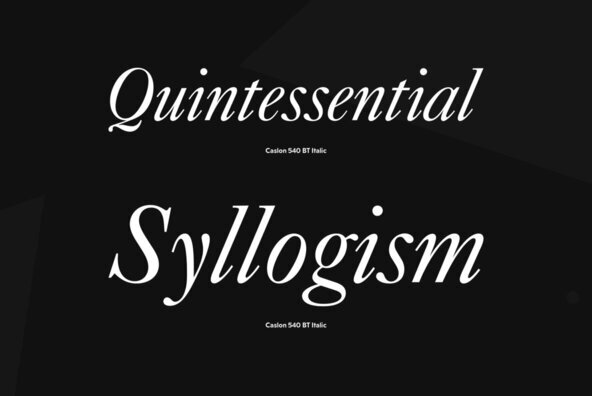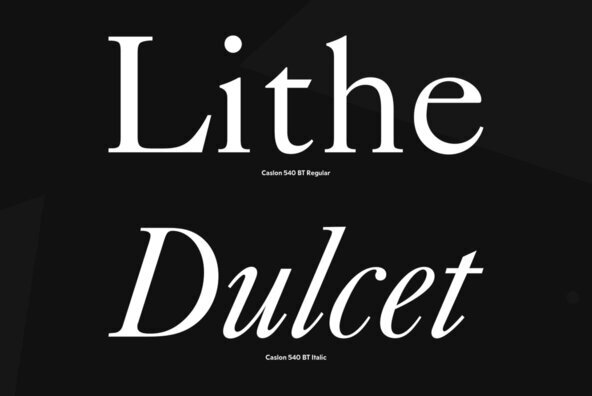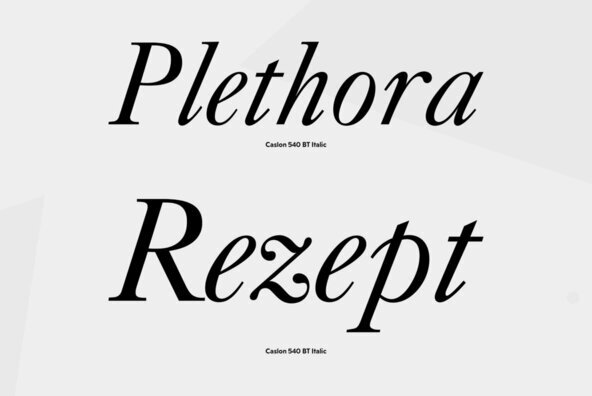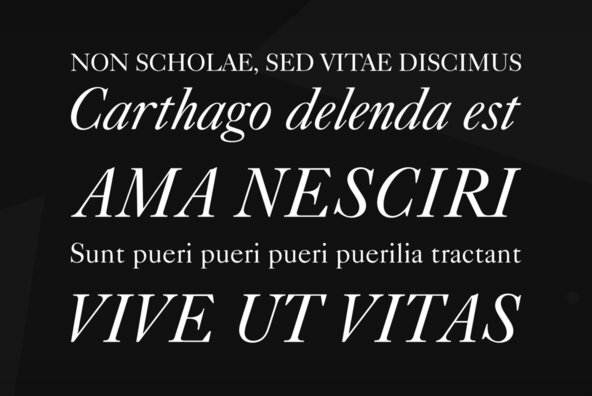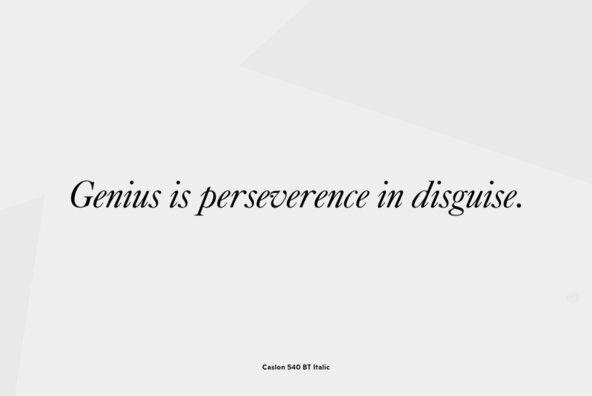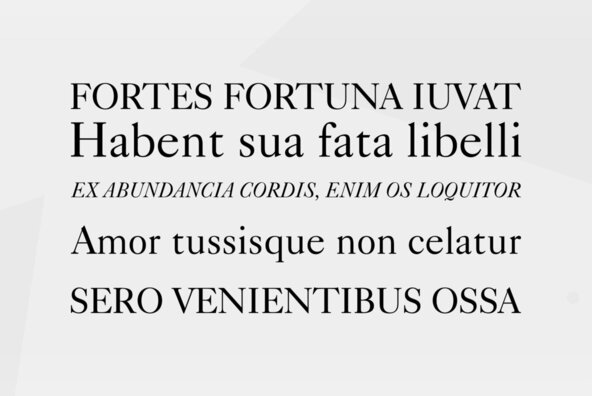
Caslon 540
The Bitstream version of Caslon 540 of the American Type Founders, 1902. Based on William Caslon I's first English Old Style typefaces of 1725. Caslon modeled his designs based on late 17th century Dutch types, but his artistic skills enabled him to improve those models, bringing a variety of forms and subtlety of details. Strokes in Caslon fonts are somewhat heavier than in earlier Old Style fonts, serifs are thicker and a bit stubby. Italic letters have uneven slope. A text set in Caslon looks legible and aesthetically appealing. Caslon is a favorite font of English printers for setting of classical literature. Cyrillic version was developed for ParaType in 2002 by Isay Slutsker and Manvel Shmavonyan.